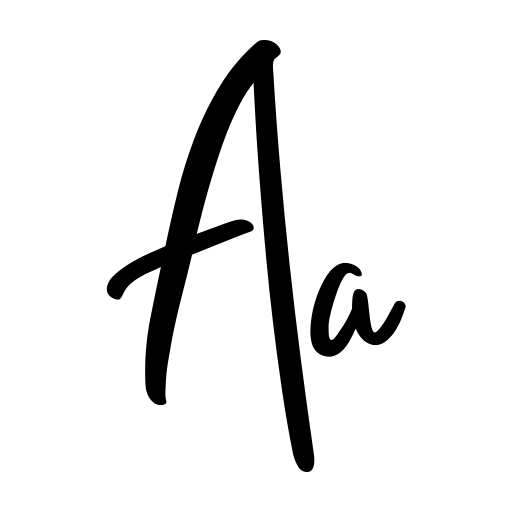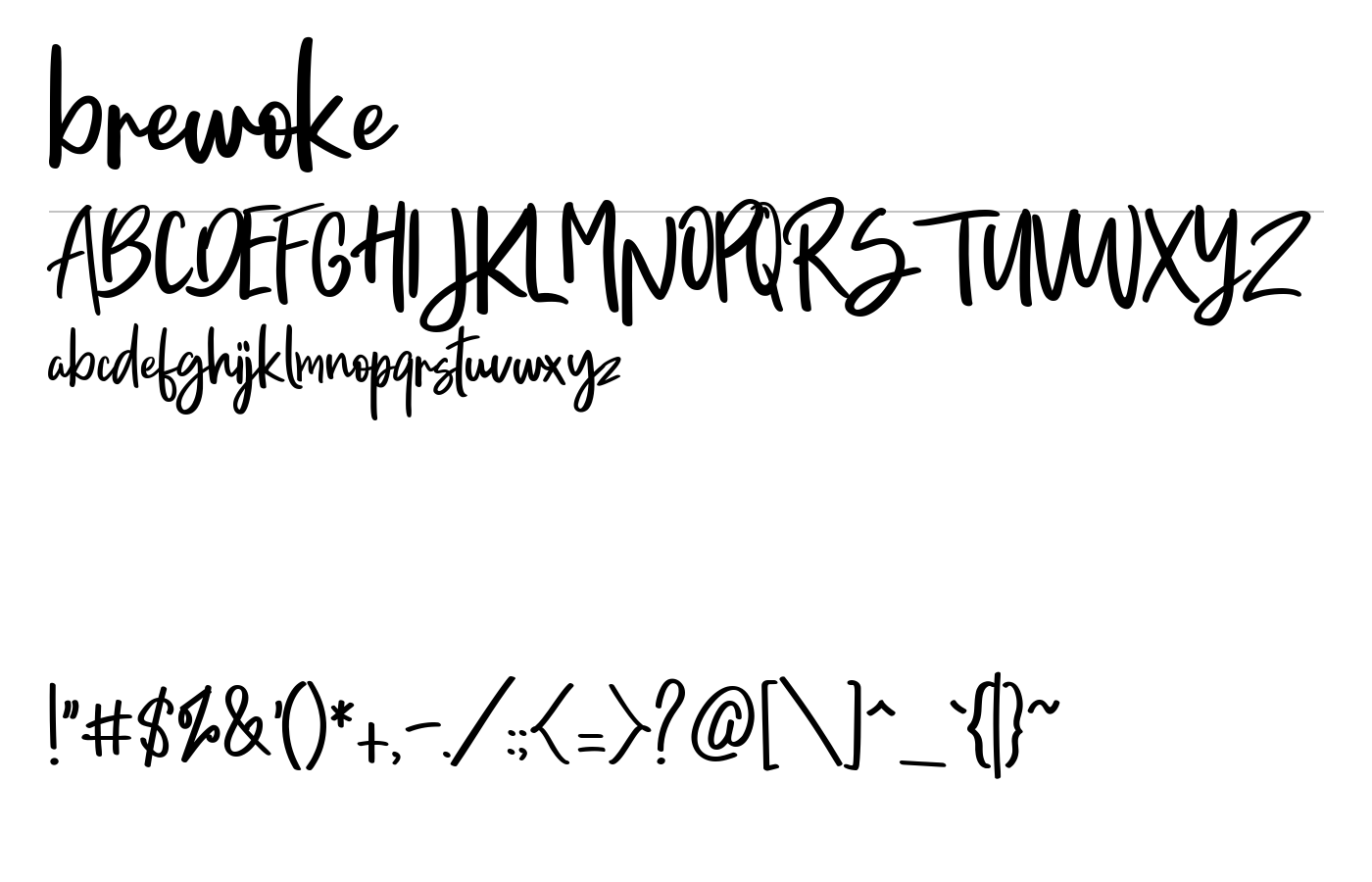
Brewoke is a casual, handwritten script font with energetic, playful strokes and a loose, informal style. Its tall, narrow letterforms with varying stroke thickness give it a lively, friendly feel that works great for creative projects, personal branding, and fun editorial designs. This font shines in headlines, logos, and packaging where a personal, approachable touch is desired.
brewoke Font
About brewoke Font
| Font family | brewoke Font |